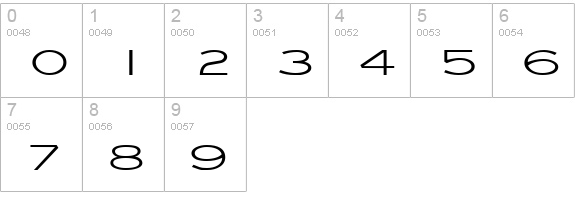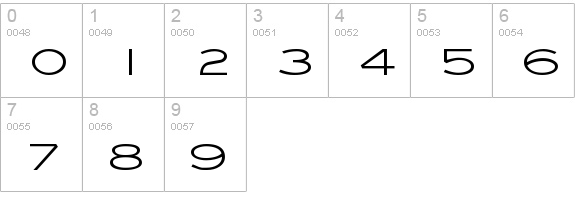
Eye glass Wide Normal Font Details
Eye glass Wide Normal is the standard, neutral, extended-width variant in the Eye typeface family \xE2\x80\x94 well suited to general body text, paragraphs, and standard typographic work.
Eye Glass Wide Normal font is a sleek and modern typeface designed to make your text stand out with its bold and eye-catching appearance. The wide spacing and clean lines of this font make it perfect for headlines, posters, and other display purposes. With its clear and easy-to-read design, Eye Glass Wide Normal font is ideal for both print and digital projects. Best of all, this font is available for free download at FontsMarket.com. Take advantage of this amazing offer and add Eye Glass Wide Normal font to your collection today. Whether you're a designer, a student, or just someone looking to enhance your projects with a stylish font, Eye Glass Wide Normal is sure to impress. Download it now and start creating stunning designs with this versatile and dynamic typeface.